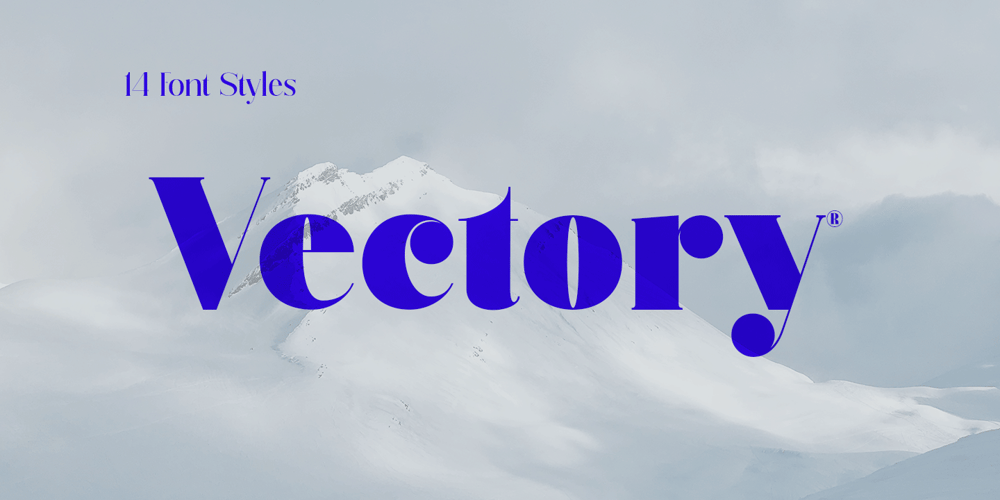
Vectory
Vectory font
Vectory Font Family was designed by Roiyani Teungku and published by Artisan Studio. Vectory contains 14 styles and family package options. Vectory is a millennial generation serif font, made with a very soft touch. Vectory is a font family, it comes in 14 weights, namely; 7 upright weights and 7 sloping weights Multilingual support for various languages including: French, German, Spanish, Portuguese, Italian, Dutch, Finnish, Swedish, and more. Vectory works great in any branding, logos, magazines, films. The different weights give you a full range of whole hosts of applications, while the outlined fonts give a real modern feel to any project. OpenType features can be accessed by using OpenType smart programs such as Adobe Photo Shop, Adobe Illustrator, Adobe Indesign, Corel Draw and Microsoft Office. can also be accessed through the character map.